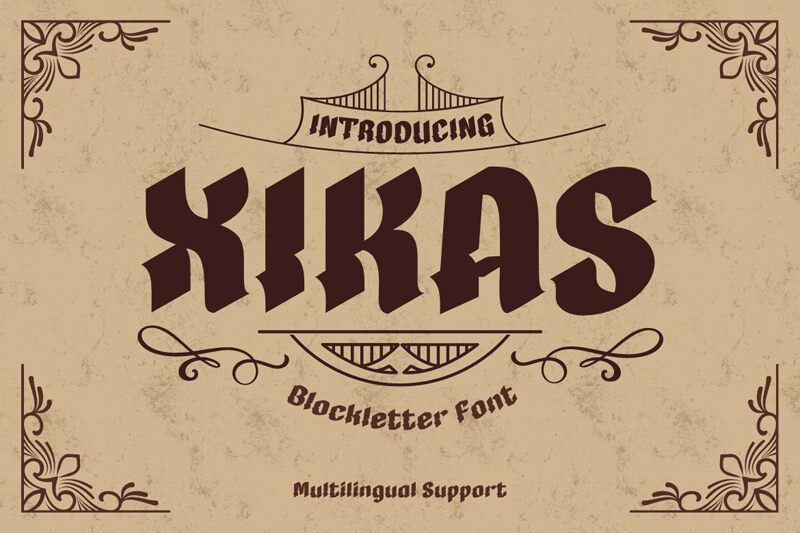
XIKAS-Regular
Xikas font by Twinletter captures the bold essence of modern gothic design. With its striking gothic typeface, Xikas commands attention through its strong and dramatic presentation, making it ideal for impactful headlines or branding projects. This bold font combines modern style with traditional gothic elements, delivering a visual that is both classic and cutting-edge.
Perfect for designers seeking a dynamic and memorable aesthetic, Xikas stands out in posters, logos, and digital media projects. As a free font download option, it offers accessibility to creatives looking to enhance their designs with a distinctive edge.